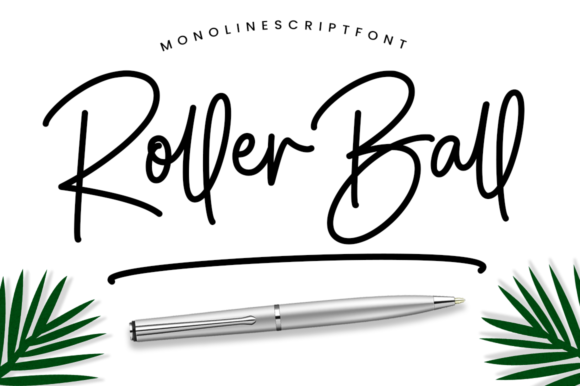
Immerse yourself in the world of distinctive signatures, where every stroke tells a tale of elegance and sophistication. Introducing Roller Ball Font, a script font family that dances across the digital canvas with its captivating handwritten charm. Created by the artistic minds at RasdiType, Roller Ball is not just a font; it's an experience that merges timeless calligraphy with a refreshing modern twist.
Roller Ball's carefully crafted characters exude an air of کلاسیکی that is both timeless and captivating. Each letter, meticulously designed with a calligrapher's touch, carries the weight of history while maintaining a sense of contemporary flair. Whether you're a seasoned designer or just starting your creative journey, Roller Ball promises to elevate your projects to new heights.
Unleash your inner artist and explore the boundless possibilities that Roller Ball offers. With its extensive glyphs and swashes, accessible through PUA encoding, you'll have a treasure trove of creative elements at your fingertips. Craft logos that leave a lasting impression, design invitations that ooze elegance, or create social media graphics that captivate your audience.
Roller Ball's versatility knows no bounds. Its enchanting beauty seamlessly blends with a wide range of design aesthetics, making it the perfect choice for a multitude of projects. From branding and marketing materials to wedding invitations and personal stationery, Roller Ball adapts effortlessly to your vision.
Experience the allure of Roller Ball and elevate your designs to new heights. Its graceful curves and elegant flourishes will add a touch of refinement to any project, leaving a lasting impression on your audience. Don't miss out on the opportunity to make a statement with every word you write. Embrace the artistry of Roller Ball and let your creativity shine through.